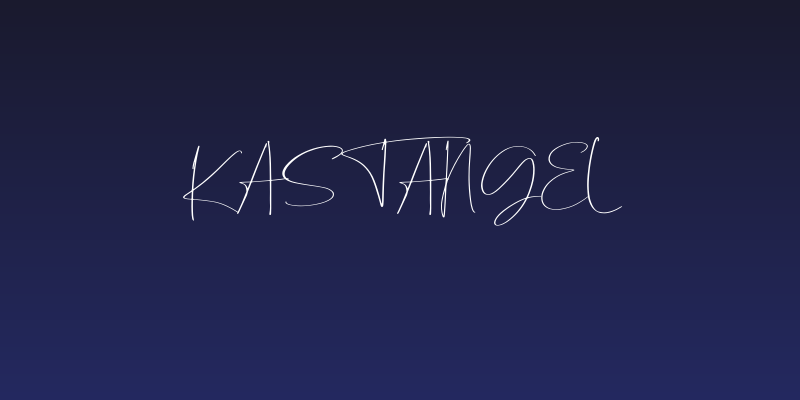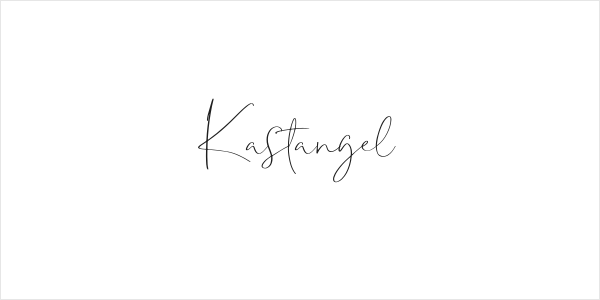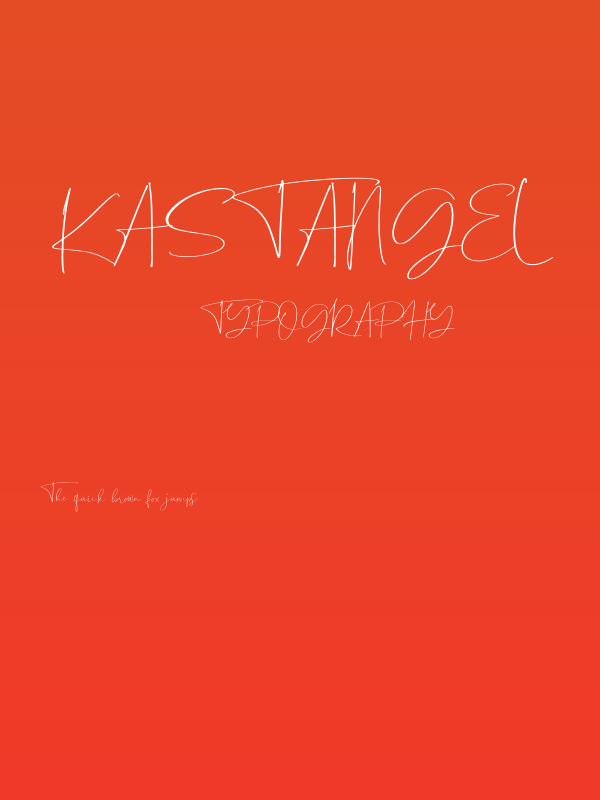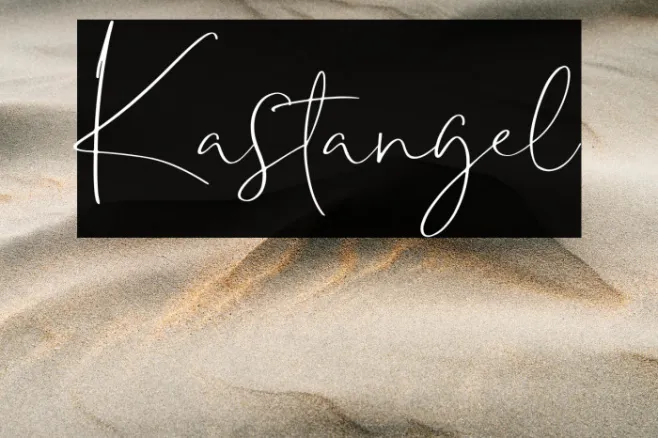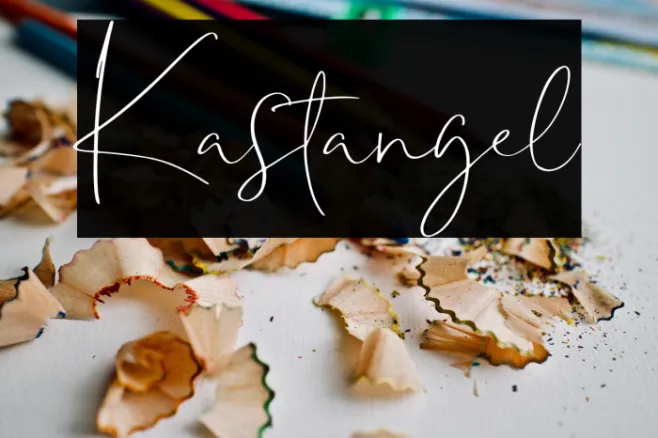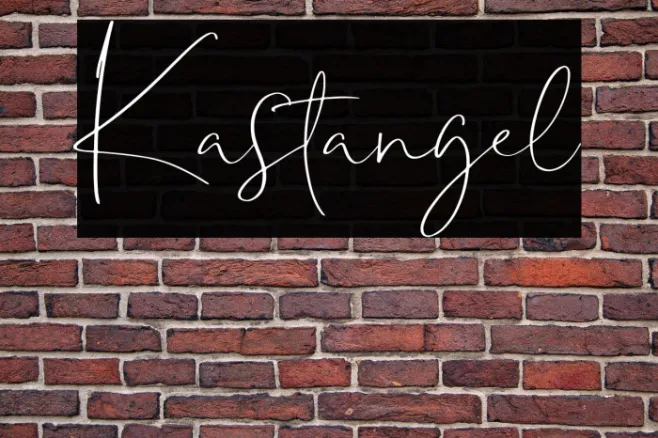
Kastangel Font
Kastangel Description
This font features an elegant and flowing script style, characterized by its smooth, cursive lines and a handwritten appearance. The uppercase letters exhibit a graceful, looping form, while the lowercase letters maintain a consistent fluidity, creating a harmonious balance. The numerals are distinct yet cohesive with the overall style, and the special characters are seamlessly integrated, enhancing the font's versatility. Its delicate strokes and airy spacing give it a light and sophisticated feel, making it suitable for a variety of creative applications.